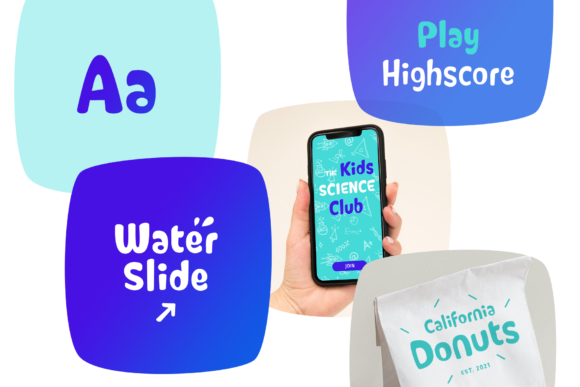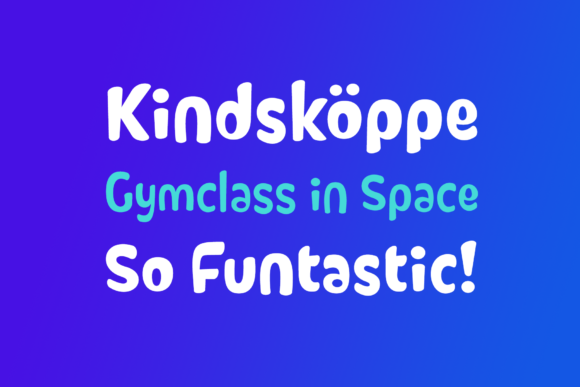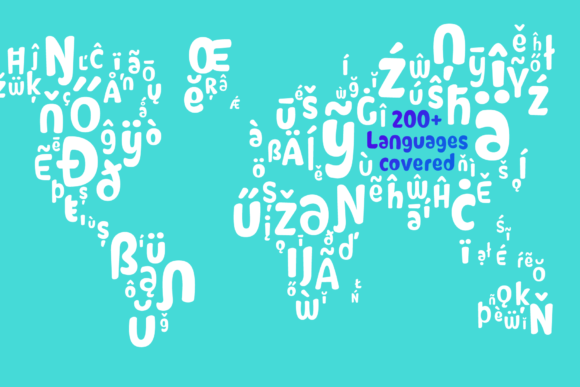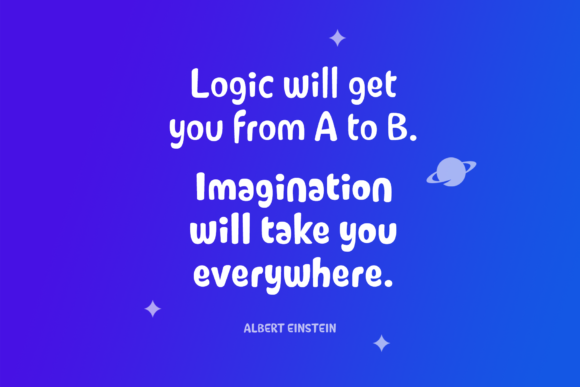
Unlocking Whimsy: The Delight of Caliny Font
Have you ever found yourself scrolling through social media, and suddenly, a post catches your eye? Maybe it’s a beautiful wedding invitation, a fun summer gathering poster, or a quirky design that just makes you smile. That’s exactly what happened to me the other day when I stumbled upon a stunning design featuring the Caliny Font. I was immediately drawn to its playful, hand-painted feel, and I knew I had to learn more about this charming font.
| 👤 Author | Marc Lohner |
The Caliny Font is a display font that exudes youth, joy, and a touch of whimsy. Its unique, paint-brushed style makes it perfect for adding a personal touch to invitations, posters, and any design that requires a sense of fun and playfulness. As a designer, you’ll love incorporating Caliny Font into your projects, as it’s sure to bring a smile to your clients’ faces and add a touch of magic to your designs.
Caliny Font Key Features
- Font Family: Caliny Font is a modern sans-serif font family, ideal for digital and print media.
- Font Size: The font family includes 8 font weights, ranging from 100 to 900, to cater to different design requirements.
- Resolution: Optimized for high-resolution displays, ensuring crisp and clear text rendering on screens.
- Unique Characteristics: Caliny Font features a clean and minimalist design, with a subtle rounded edge and open apertures, making it highly legible and aesthetically pleasing.
- Language Support: Supports multiple languages, including Latin, Cyrillic, and Greek scripts, making it suitable for global branding and communication.
Designer Review: Caliny Font
As a designer, I was excited to try out the Caliny font. Initially, I was drawn to its playful, modern vibe, and I thought it could be a great addition to my design toolkit.
- The Caliny font is highly legible, making it perfect for body text and titles.
- Its modern feel is perfect for contemporary designs, such as branding, websites, and digital products.
- The font comes in a range of weights and styles, allowing for versatility in your designs.
- It’s great for use in social media graphics, advertisements, and other promotional materials.
- The font might be a bit too playful for formal or traditional designs.
- Some users may find the font too busy or distracting, especially when used in large blocks of text.
- The font is not as comprehensive as some other font families, with limited language support.
Overall, I think the Caliny font is a solid choice for modern designs. While it may have some limitations, it’s a great addition to any designer’s toolkit. With its playful vibe and high legibility, it’s perfect for a wide range of projects. Just be mindful of its potential drawbacks, and you’ll be able to create stunning designs with ease.
Tips for Getting the Most Out of Caliny Font
Caliny Font is a versatile and elegant font that can be used for a variety of purposes.
Here are some tips for getting the most out of Caliny Font:
1. Use Caliny Font for headings and titles to add a touch of elegance to your design.
2. Experiment with different font sizes and colors to create a unique and eye-catching design.
3. Use Caliny Font in combination with other fonts to create a visually appealing and balanced design.
Caliny Font is ideal for a variety of use cases
Alternatives to Caliny Font
Lato is a sans-serif font designed by Łukasz Dziedzic. It is a clean and modern font suitable for body text and titles. Use Lato for digital products, websites, and applications where a clear and readable font is required.
Comparison to Caliny Font: Lato has a more geometric and minimalistic design compared to Caliny Font’s rounded edges. Lato is more suitable for digital interfaces, while Caliny Font is more versatile for print and digital use.